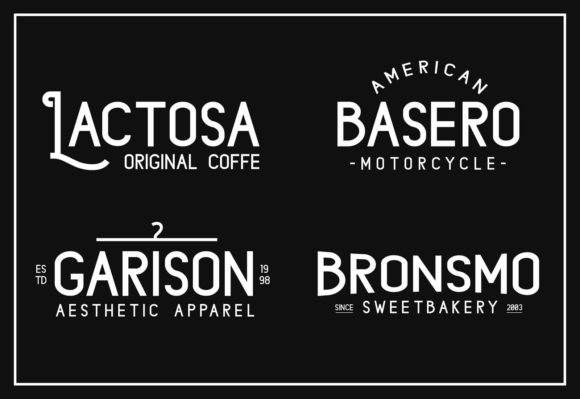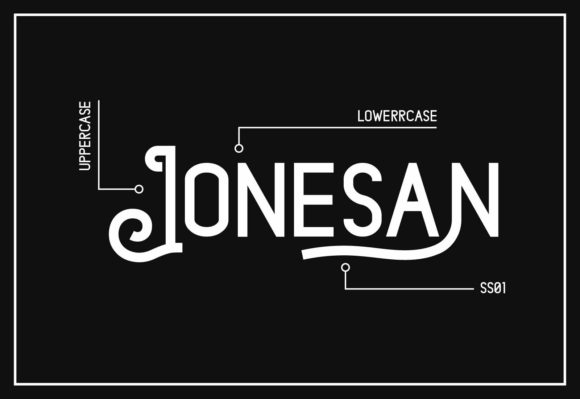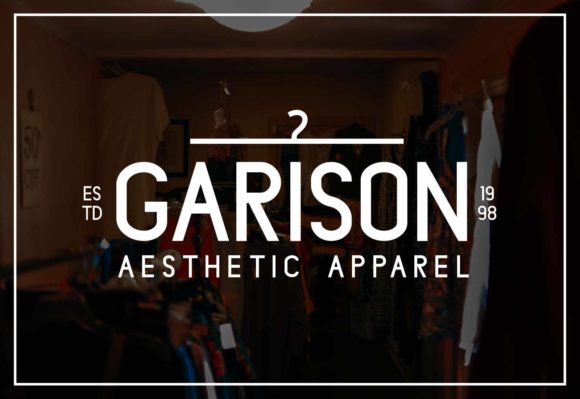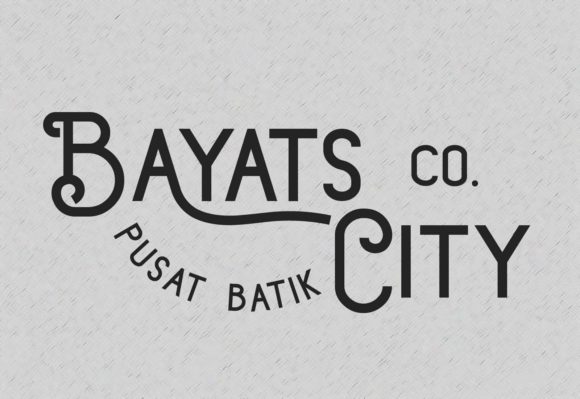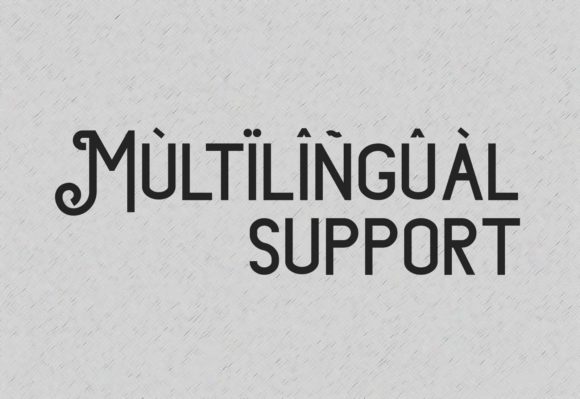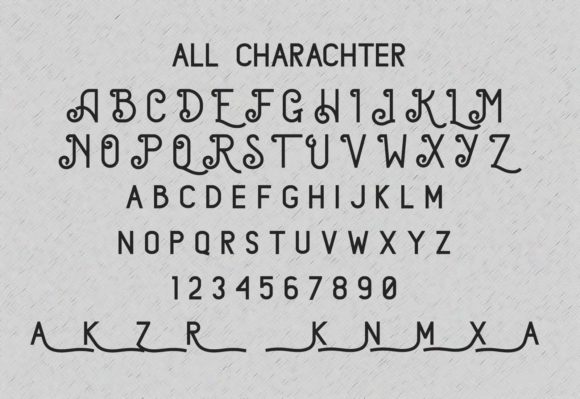
Introduction to Jonesan Font
Have you ever been working on a creative project and suddenly, the perfect font just isn’t there? You’ve scoured the internet for hours, only to find something that’s almost right, but just not quite. Well, we’re here to tell you that your search may be over with the introduction of the Jonesan Font.
This vintage styled display font is a game-changer for designers, offering a unique blend of style and versatility that’s sure to elevate any project. Whether you’re working on a design for a free download, a marketing campaign, or a high-quality print piece, the Jonesan Font is a valuable resource that’s sure to impress.
Key Features of Jonesan Font
- Unique, modern font style with a transparent background, perfect for graphic designers and artists.
- Unique Jonesan Font style features a mix of bold and elegant lines, making it ideal for headings and titles.
Honest Review: Jonesan Font
I recently had the chance to work with the Jonesan Font, and I’m excited to share my thoughts on this design resource. ✨ One of the things that stood out to me was the high quality of the font, which made it perfect for my latest creative project. The transparent background allowed me to easily integrate it into my design without any issues.
- ✨ High-quality design that looks great on any project
- ✨ Perfect for creating unique and eye-catching designs
Overall, I’m impressed with the Jonesan Font and would definitely recommend it to designers looking for a high-quality, free download. With a little creativity, this font can add a unique touch to any project.
Tips for Getting the Most Out of Jonesan Font
The Jonesan Font is ideal for creative projects, including digital art, graphic design, and typography. Its unique style makes it perfect for branding and marketing materials, such as logos, business cards, and brochures.
Is the Jonesan Font a high-quality design resource?
Yes, the Jonesan Font is a high-quality design resource that is suitable for a wide range of creative projects. With its clean and modern design, it is perfect for use in logos, branding, and other design materials where a professional look is required.